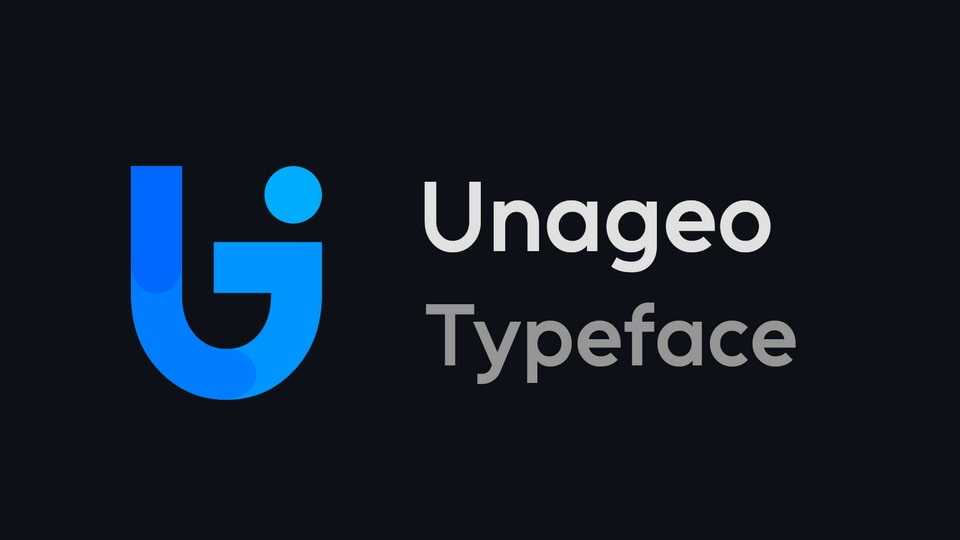
Download Unageo font, a simple, geometric typeface with variable weight support, that was made with digital use in mind, however it works in print just as well .Unageo is designed to use perfect geometric shapes where possible while still maintaining great readability.